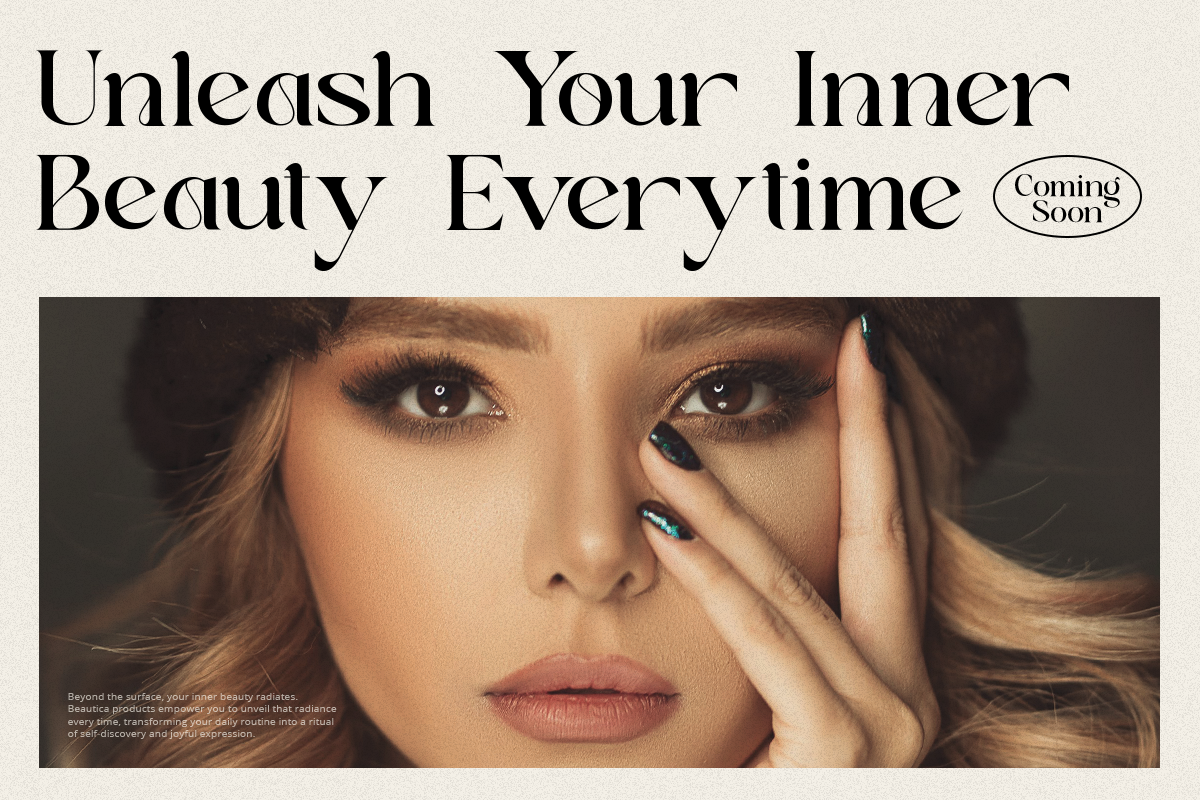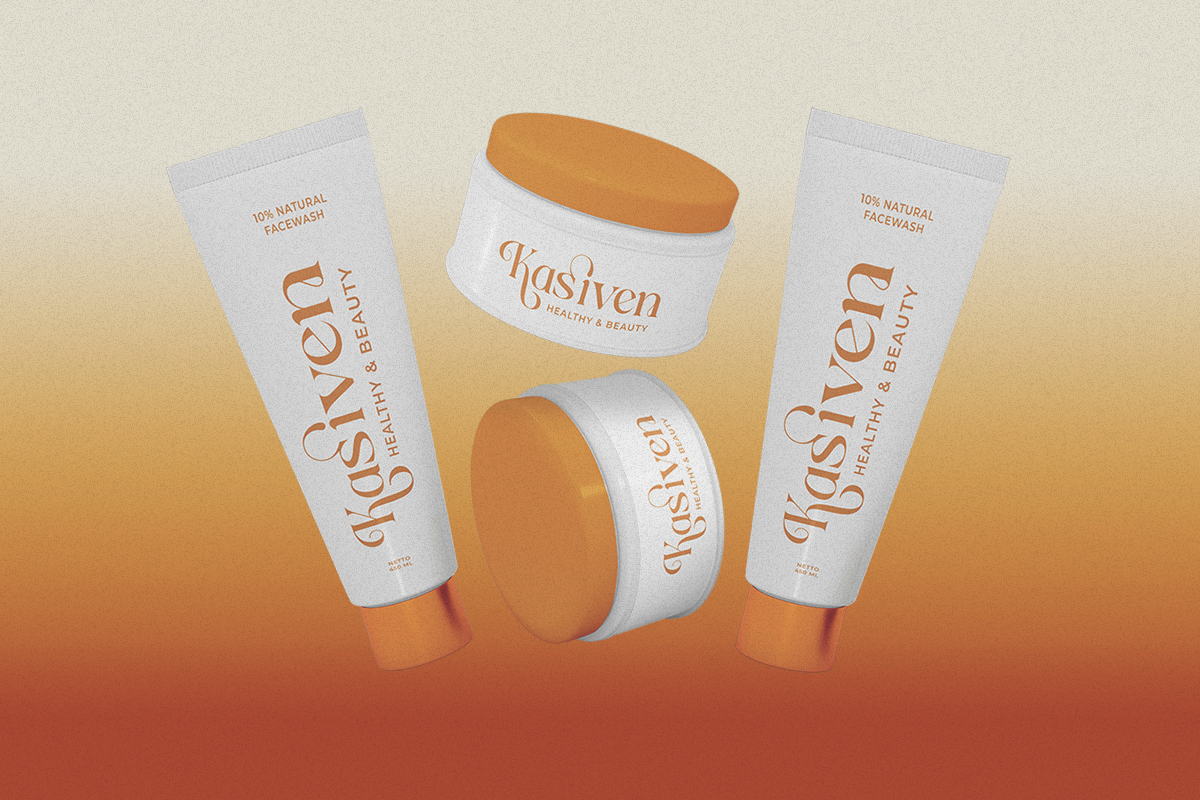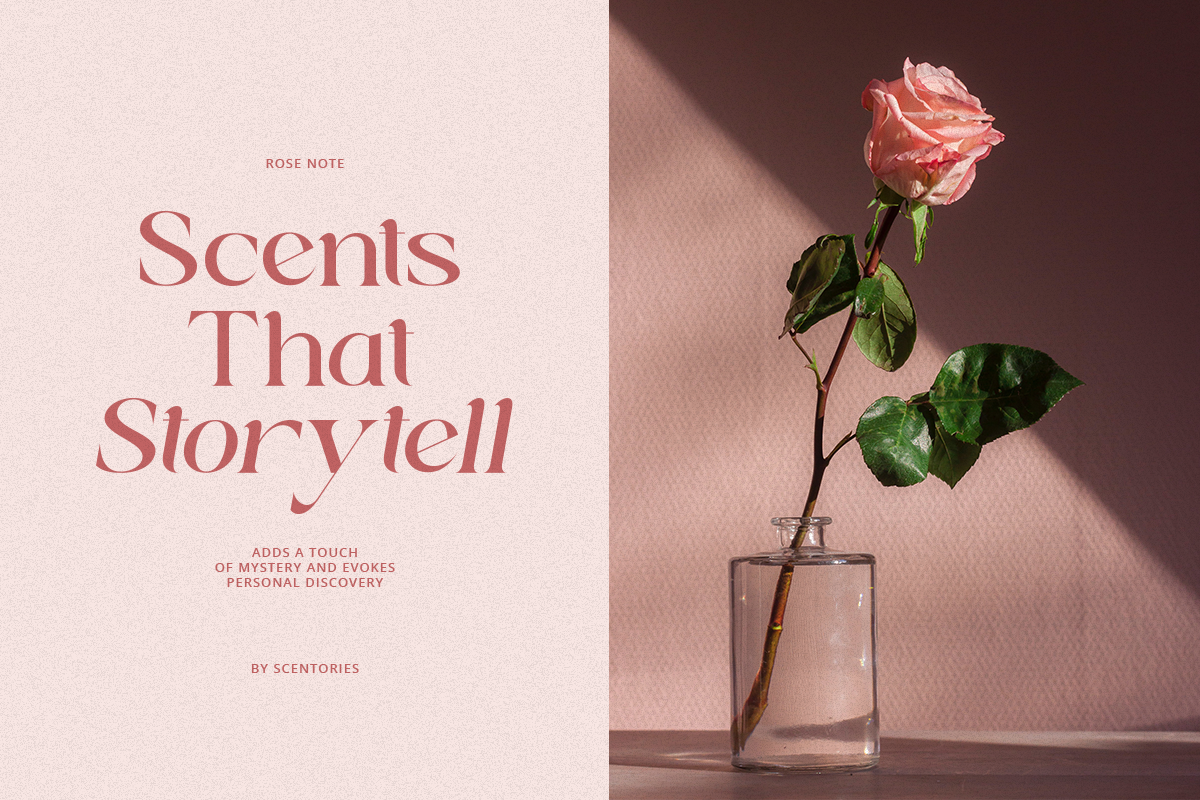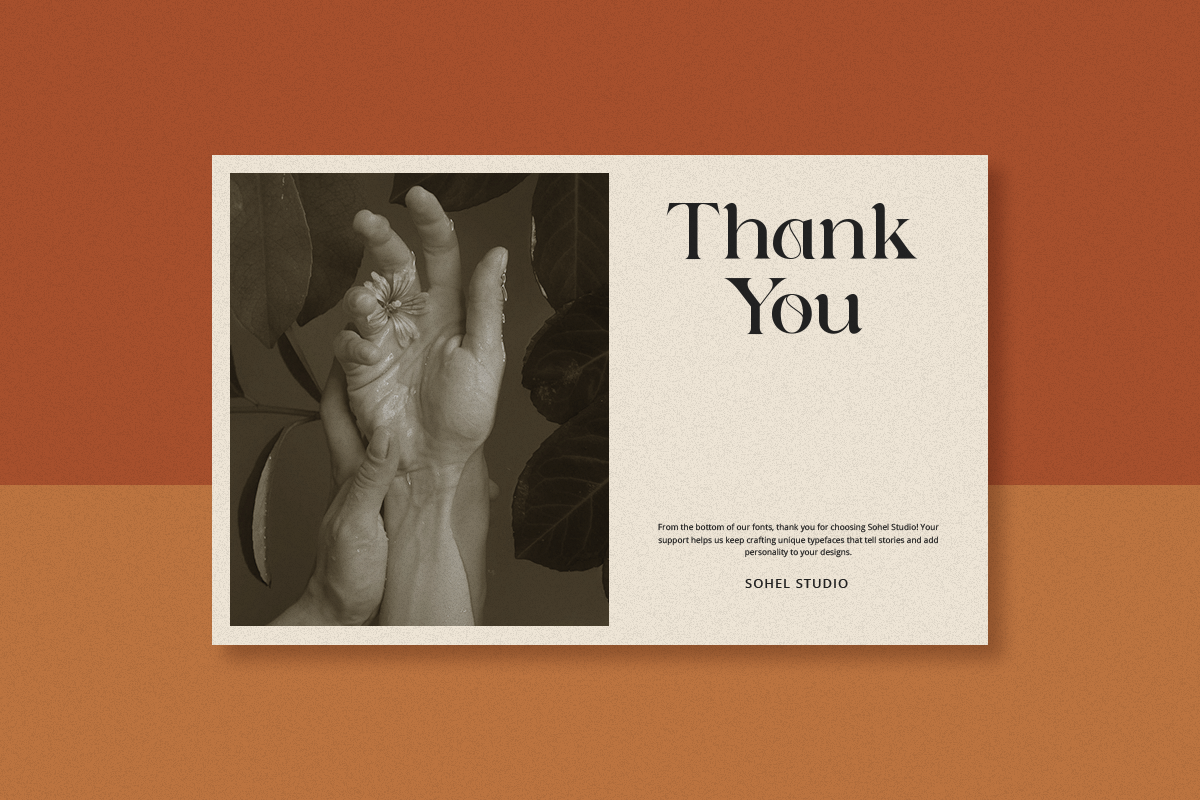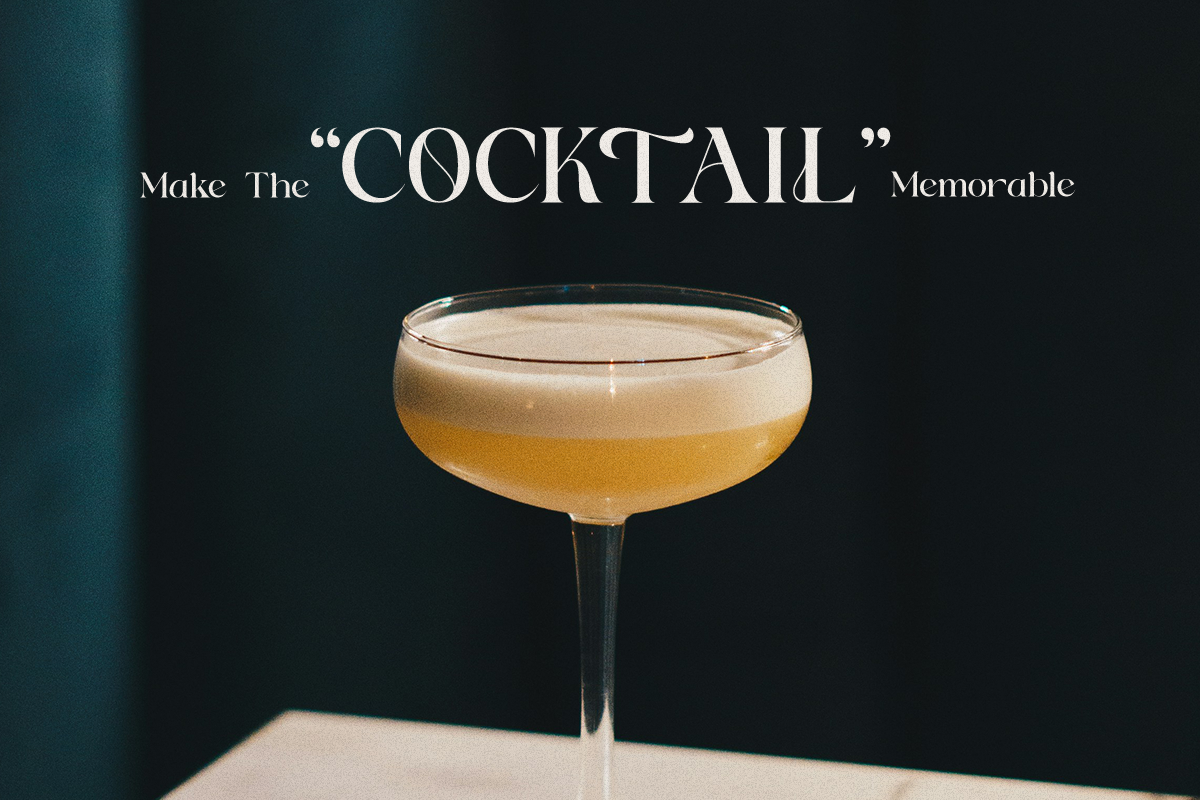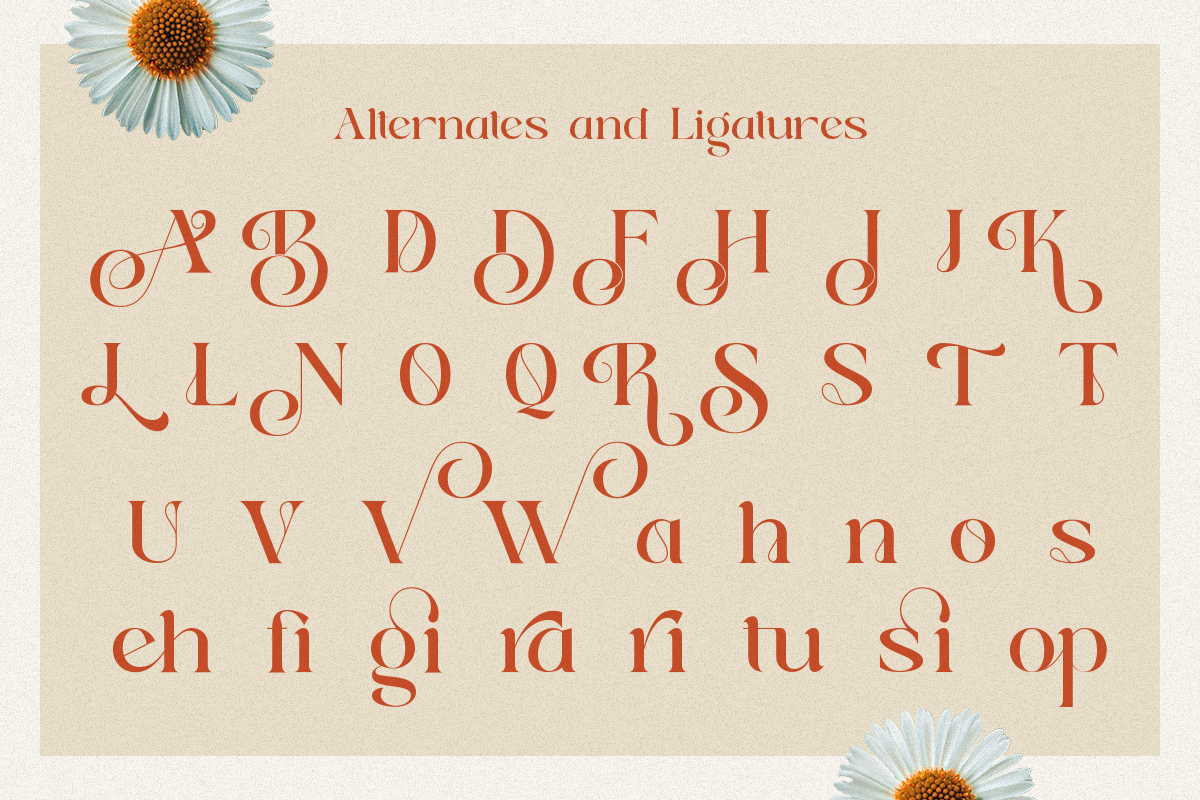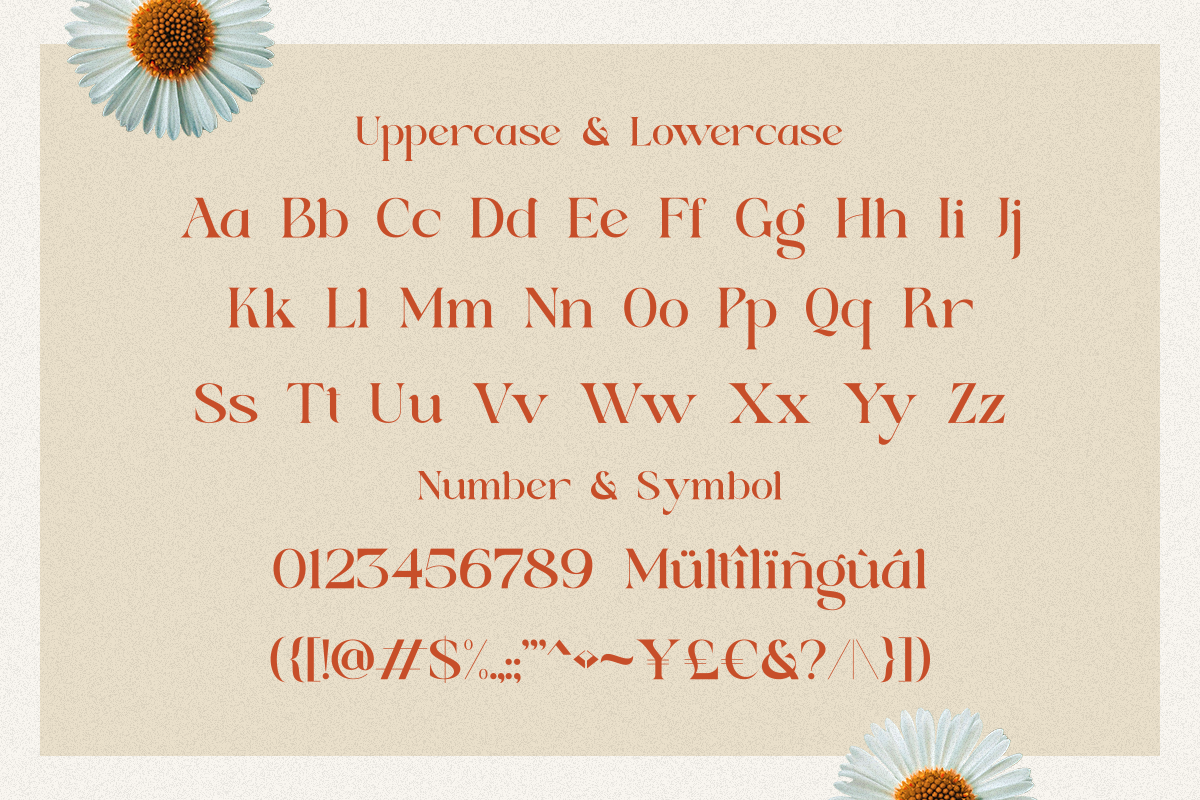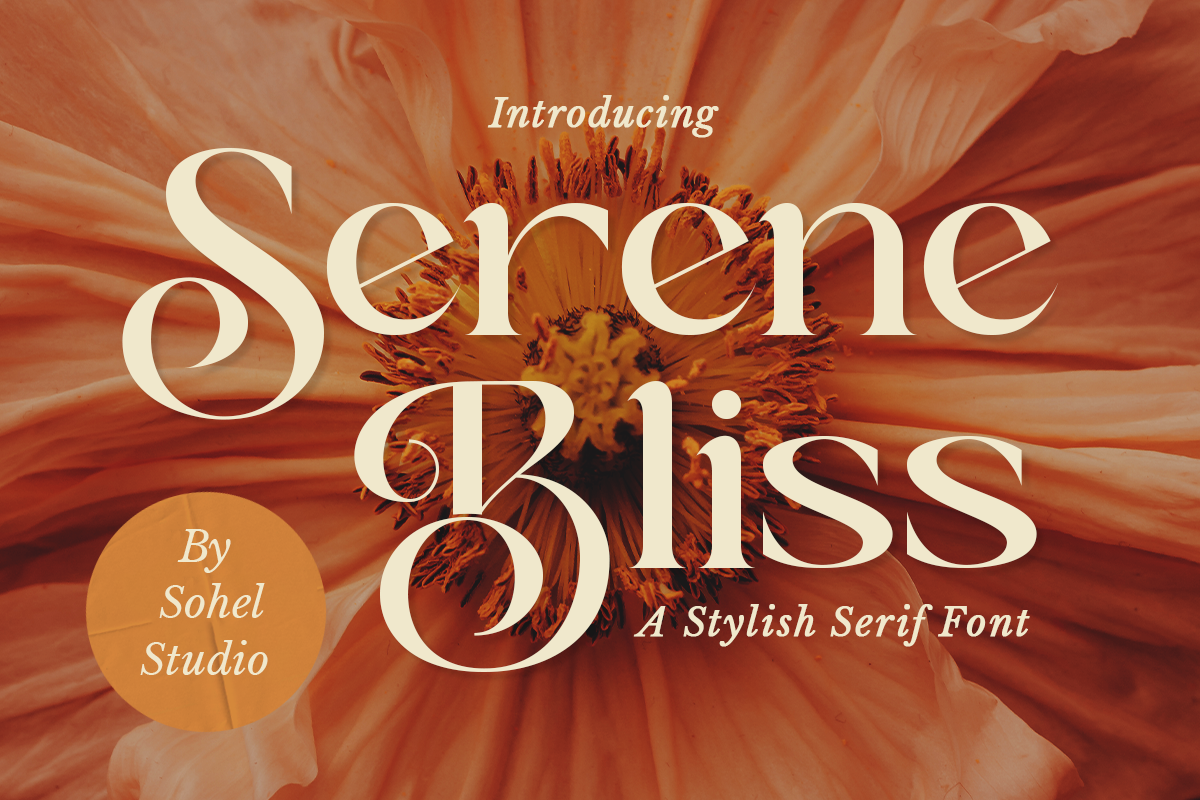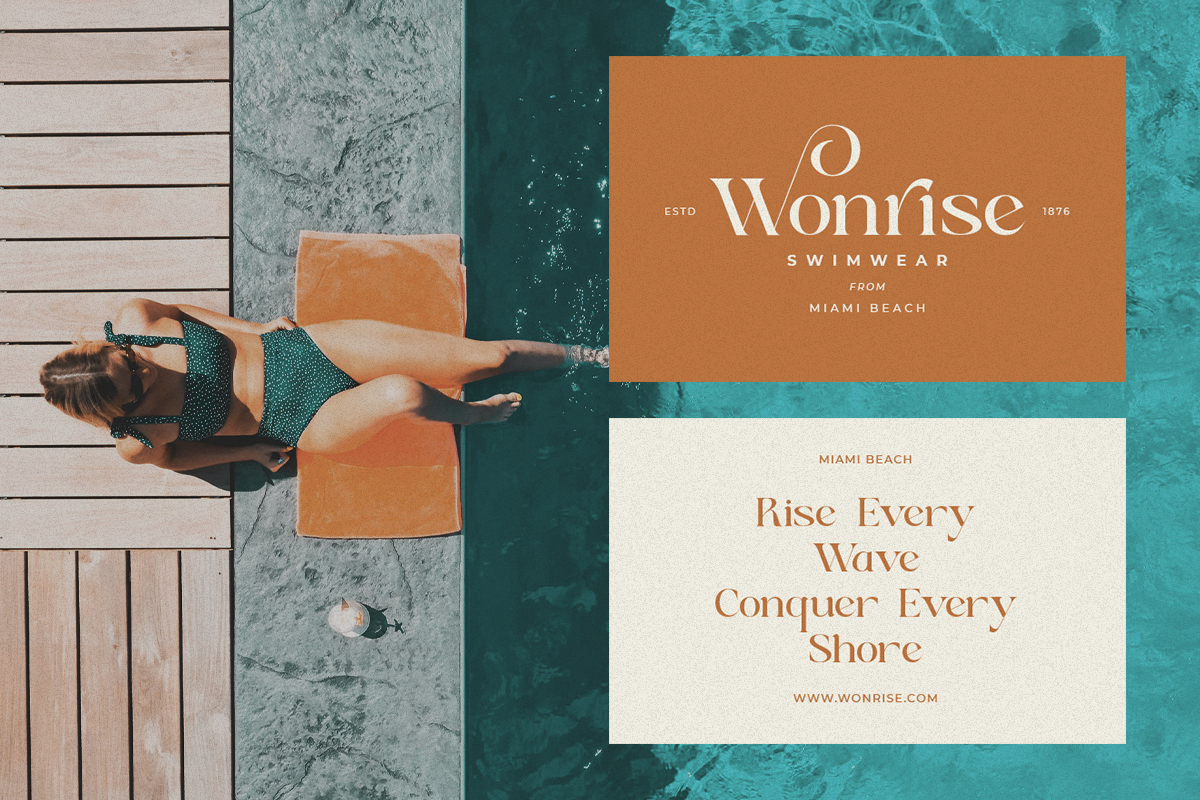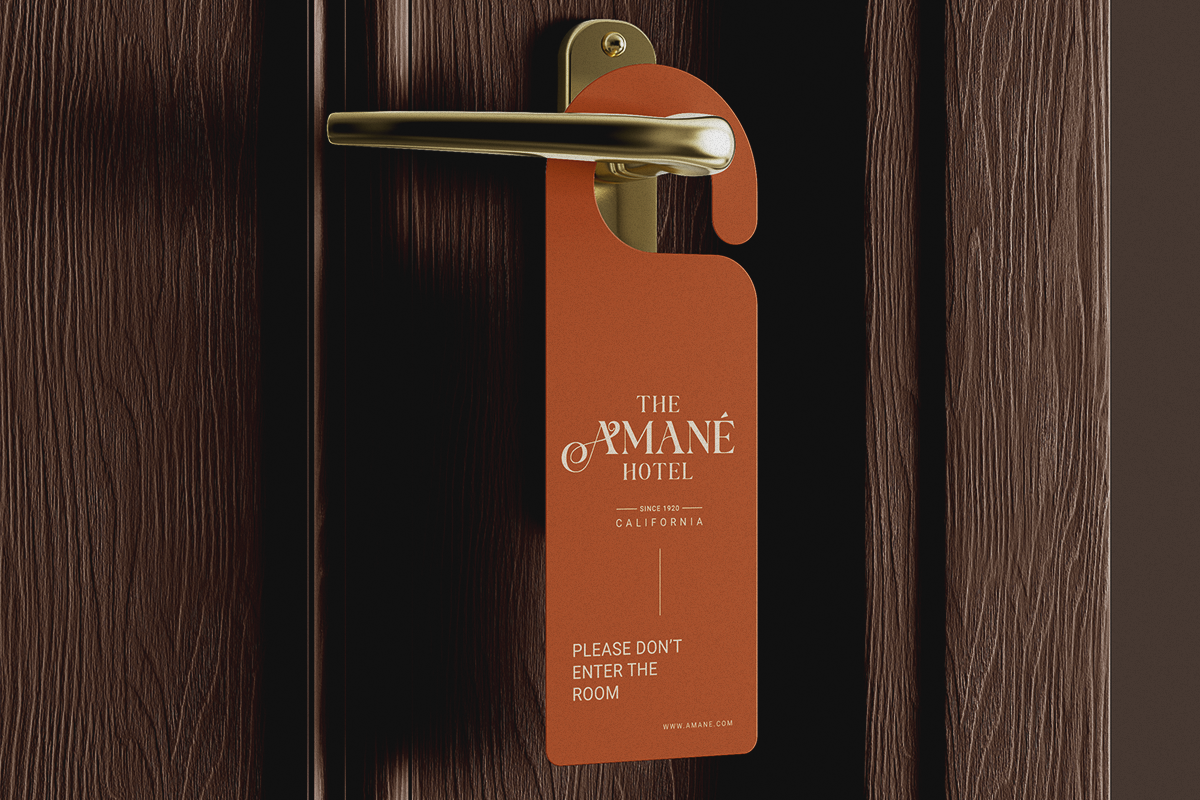
Serene Bliss - Modern Branding Font
Serene Bliss is unique as it can be used for a variety of design styles. It fits in wonderfully for free-spirited, boho designs and also for more classy editorial looks!
There are a lot of fun stylistic alternates available to use with this font. These letters are embedded into the font file and easily accessible in programs such as photoshop and illustrator.
Serene Bliss Features: